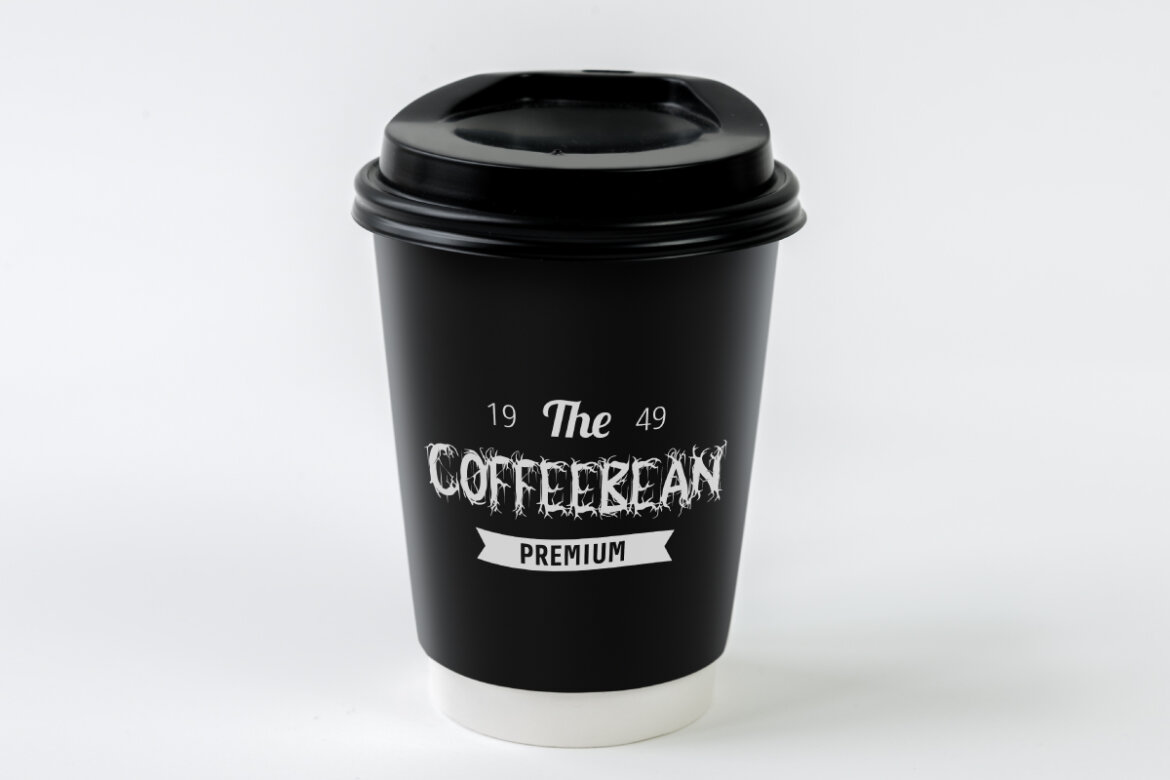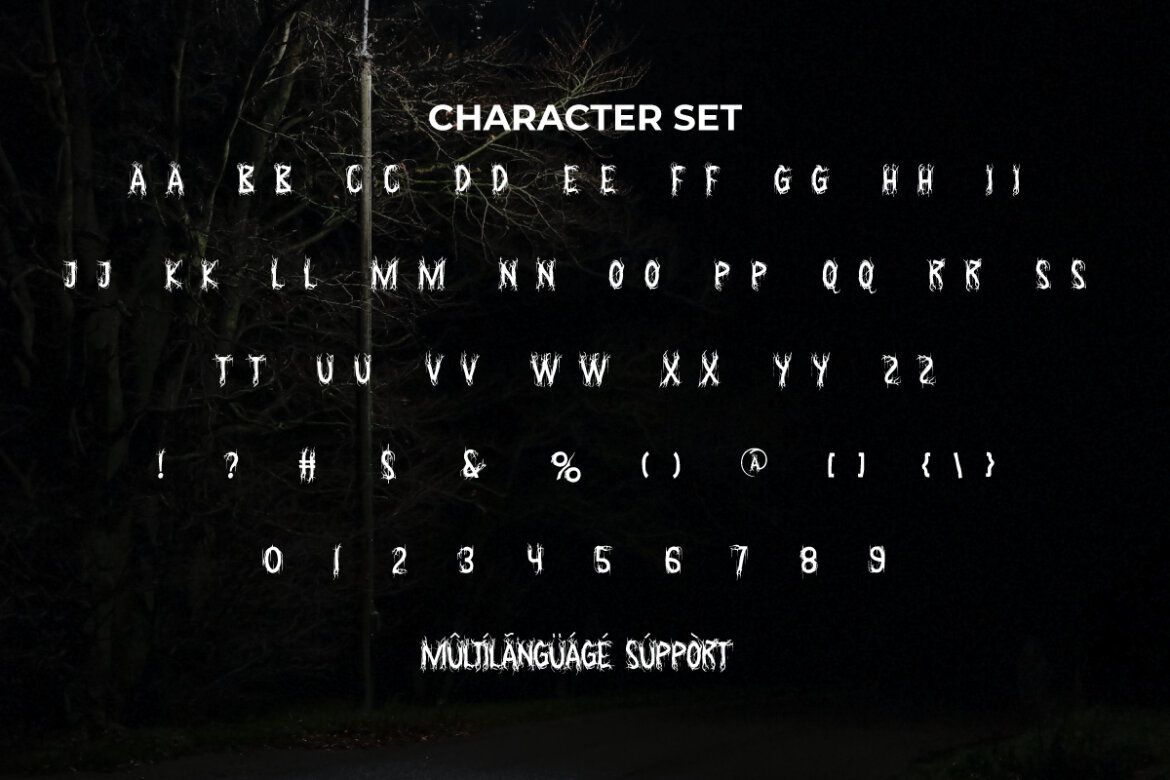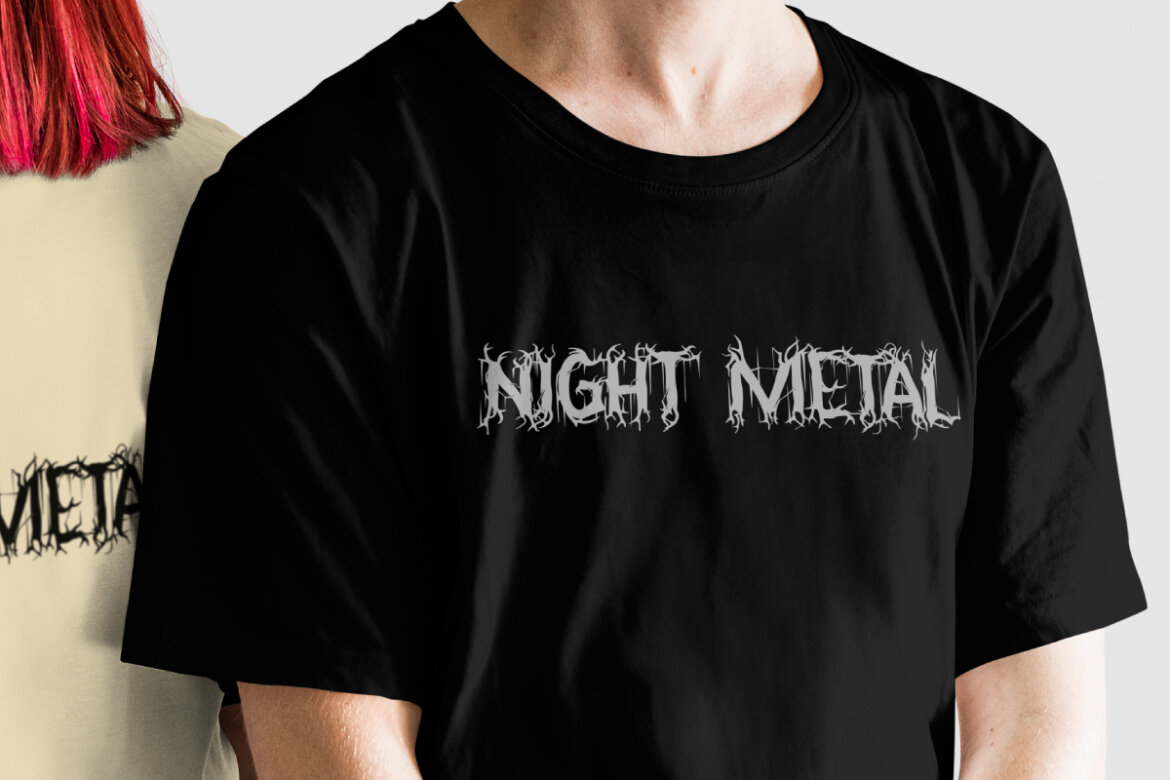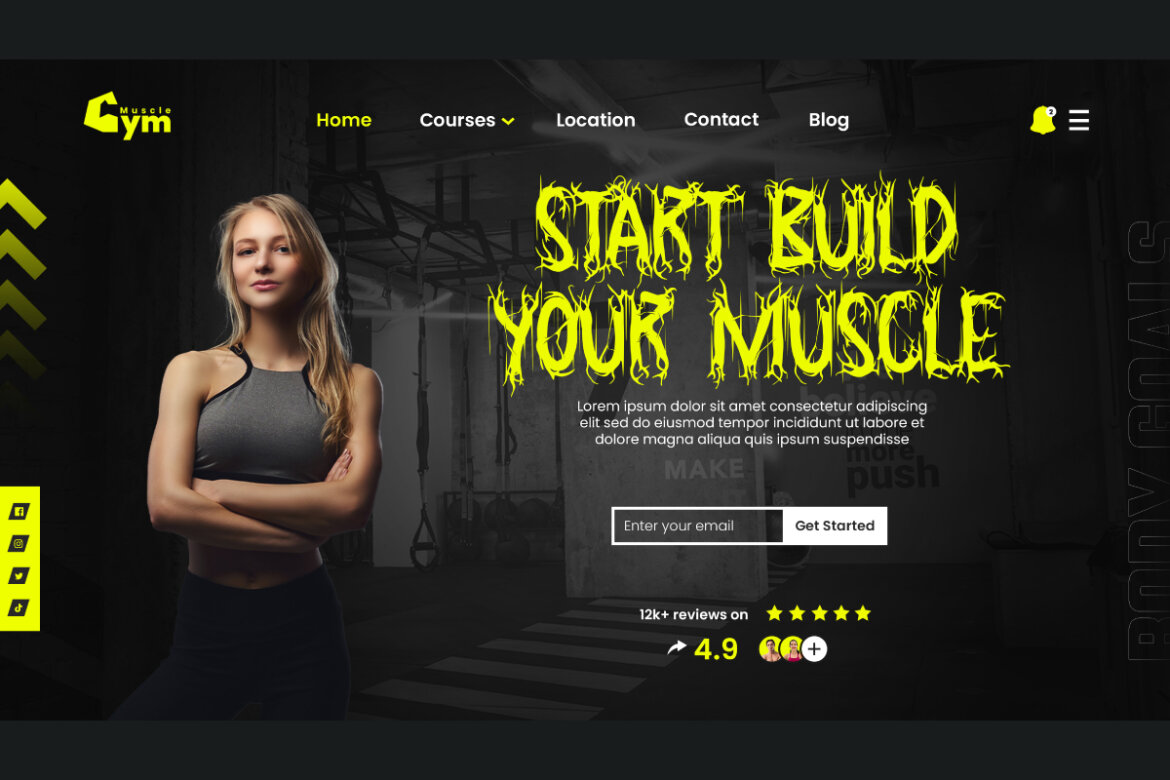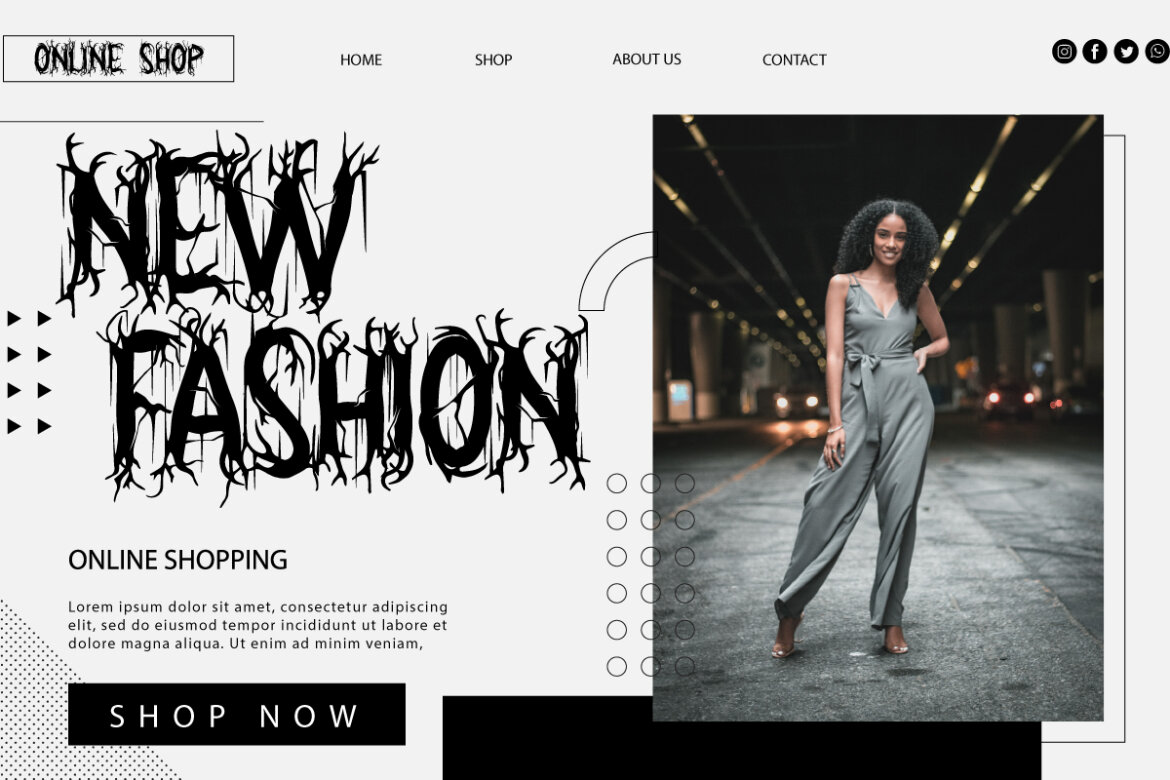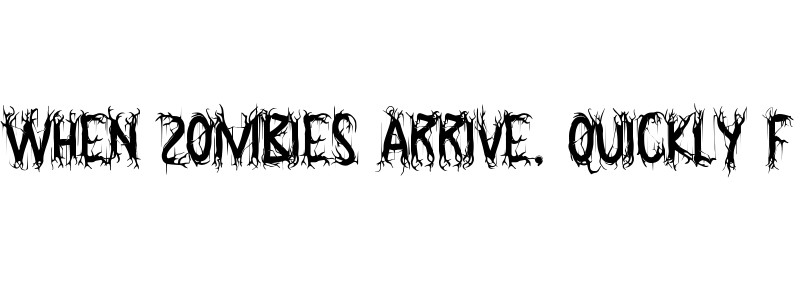
Night Metal FREE Font
Night Metal Font is a hardcore black metal spooky display font with the feeling of a darkness theme. This is a black metal font that will be suitable for branding logos, covers, greeting cards, headers, invitation cards, label, logos, name card, posters, product packaging, sticker, t-shirts, thermos, visiting card, website, and other designs that require a sense of horror fonts.
Night Metal Font is a horror display font with intricate root string decorations that appear to give it the grimness that the metal genre demands. This font has an exclusive design and high quality. It will be ideal for use in cafeterias, clothing brands, events, fashion, film, fitness, graphic design, music, outdoor products, photography, tattoo business, and more.
Night Metal Font includes a complete basic set in ALL CAPS for both Uppercase and Lowercase, Number, a large range of Punctuation, and Symbol. It is supported with multilingual characters and ready to use both on Windows machine or Mac with simple installations. It’s tested to work well in the Adobe Apps (Illustrator, Adobe InDesign, Adobe Photoshop) CorelDraw, and others. PUA Encode Characters means you can access all the characters easily – Fully accessible without additional design software.